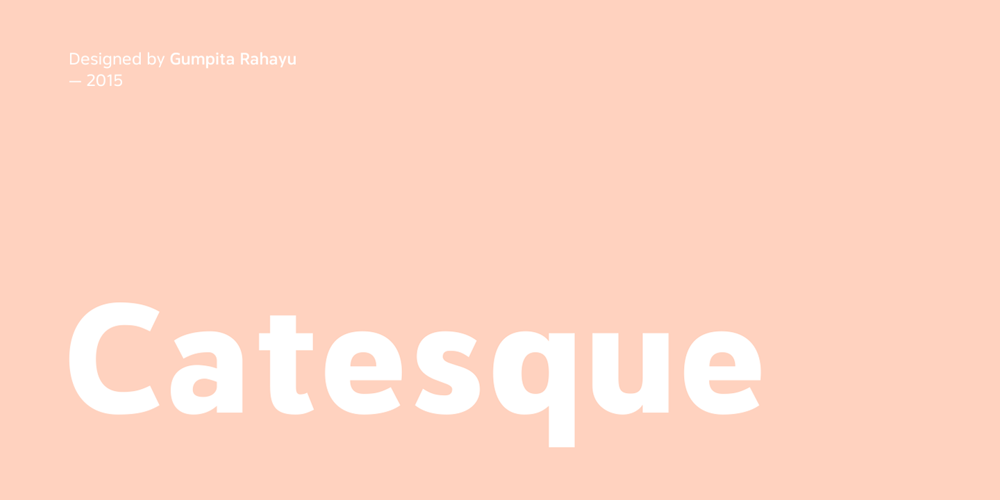
Catesque Font Family was designed by Gumpita Rahayu and published by Gumpita Rahayu. Catesque contains 10 styles and family package options. After several months discovering and developing the traits and personalities well balanced typefaces such like Frutiger and the other identical typefaces, Catesque was born as the new typefaces. The vocal flourish yet harmonious shapes not purely geometrically, it has imperfect rounded characters such as “O” “C” and “G”. Catesque can make some distinctness for large scale design as well as small text. The traits versatilities usable for many design applications, it’s comes with five weights from light to black plus mathcing italics. All characters included the Tabular figures, case-sensitive forms, fractions, and another most common numerals features such as super & subscript to accomplish the numeric design works such like menu, annual reports, etc. The alternate characters are included as well, all features can accessed with OpenType-savvy programs on Adobe Creative Suite via OpenType Panel.